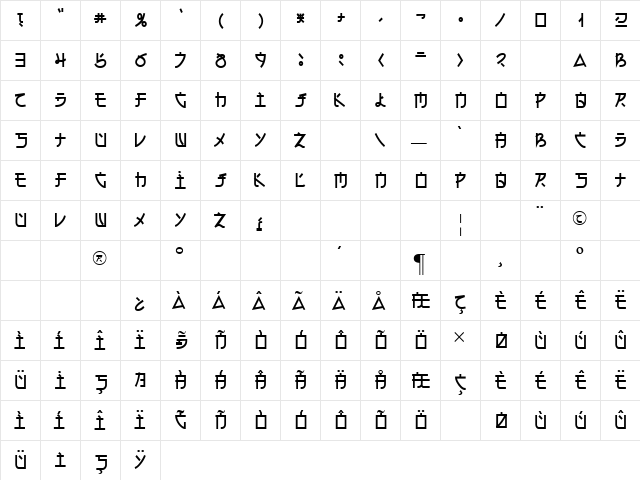
TR Electroharmonix Regular
Design Context for TR Electroharmonix Typeface
TR Electroharmonix is a composed and adaptable typeface that performs quietly and consistently across a wide range of design contexts.